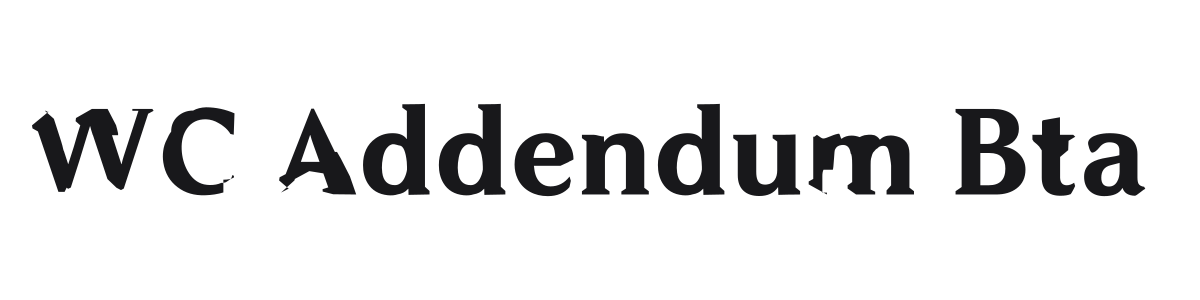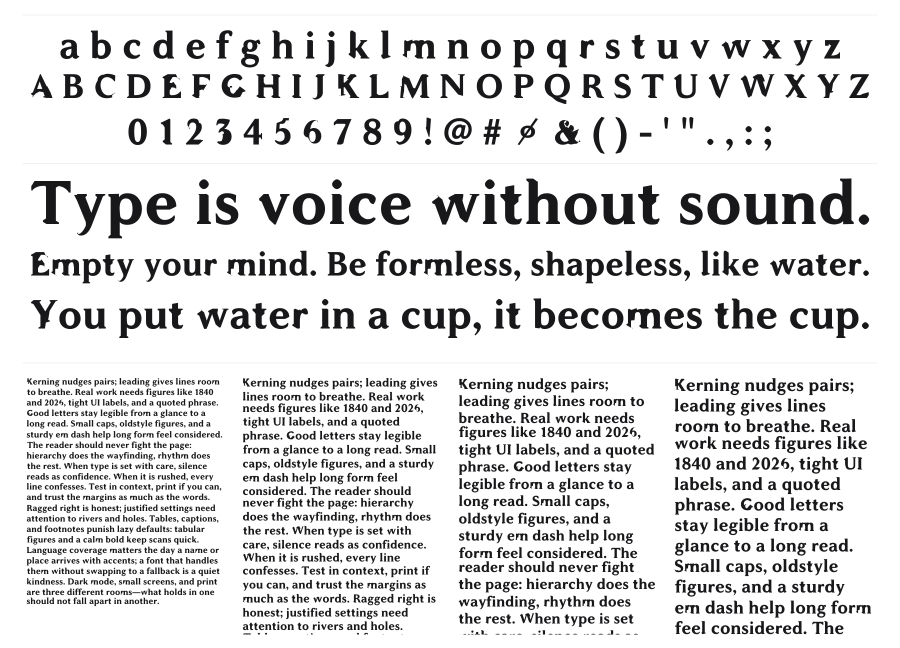
WC Addendum Bta
WC Addendum Bta is a heavy bold serif with deliberate distressing that evokes aged letterpress printing and worn metal type. The classical old-style structure gets roughed up with subtle ink-erosion texture across strokes and terminals, giving it a raw, lived-in quality. Strong at large sizes for headlines, posters, and branding that needs a sense of heritage without feeling precious.